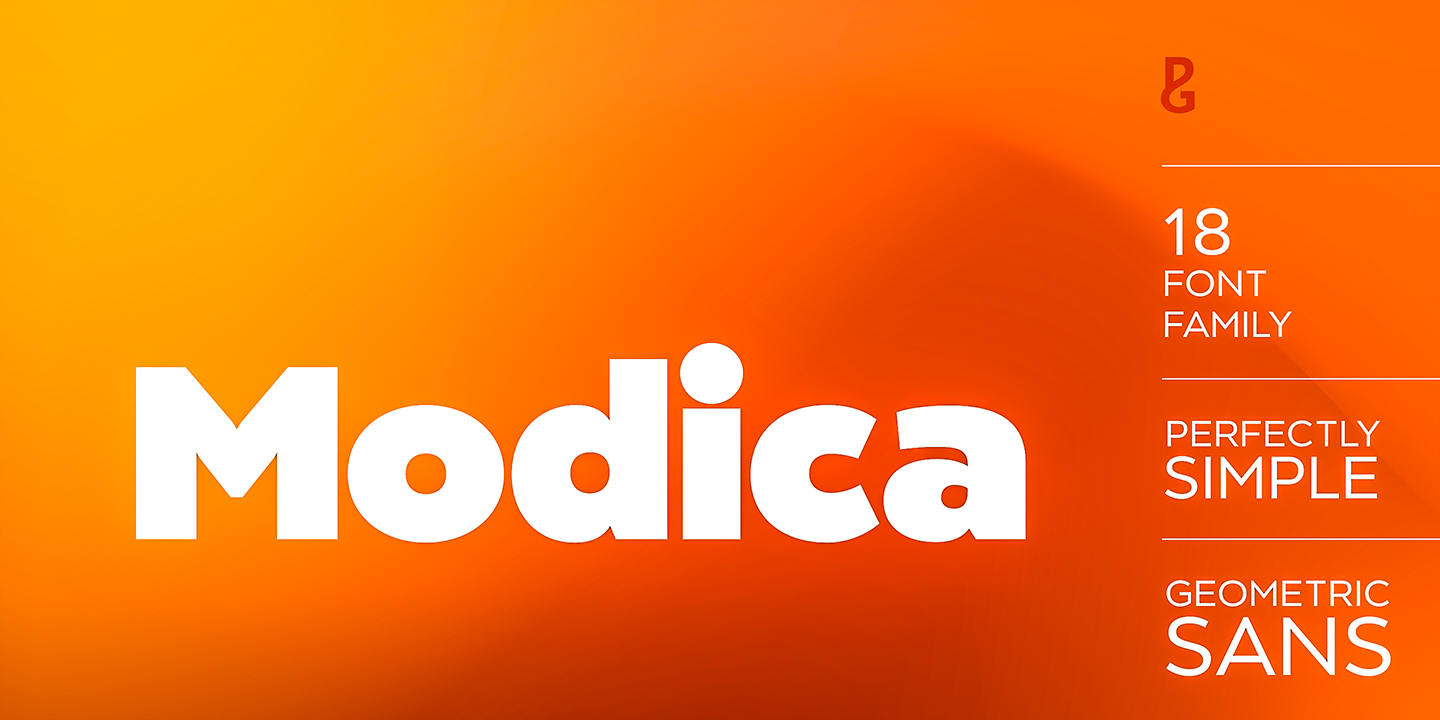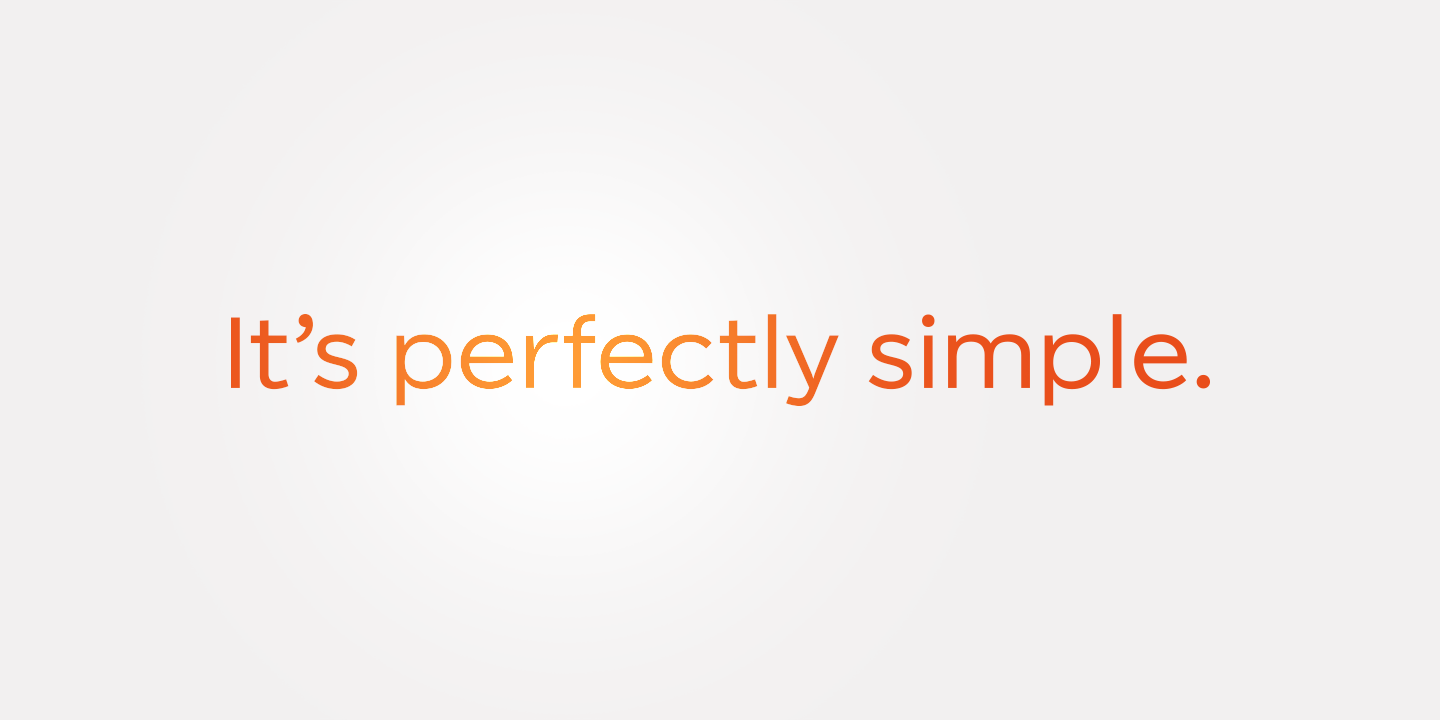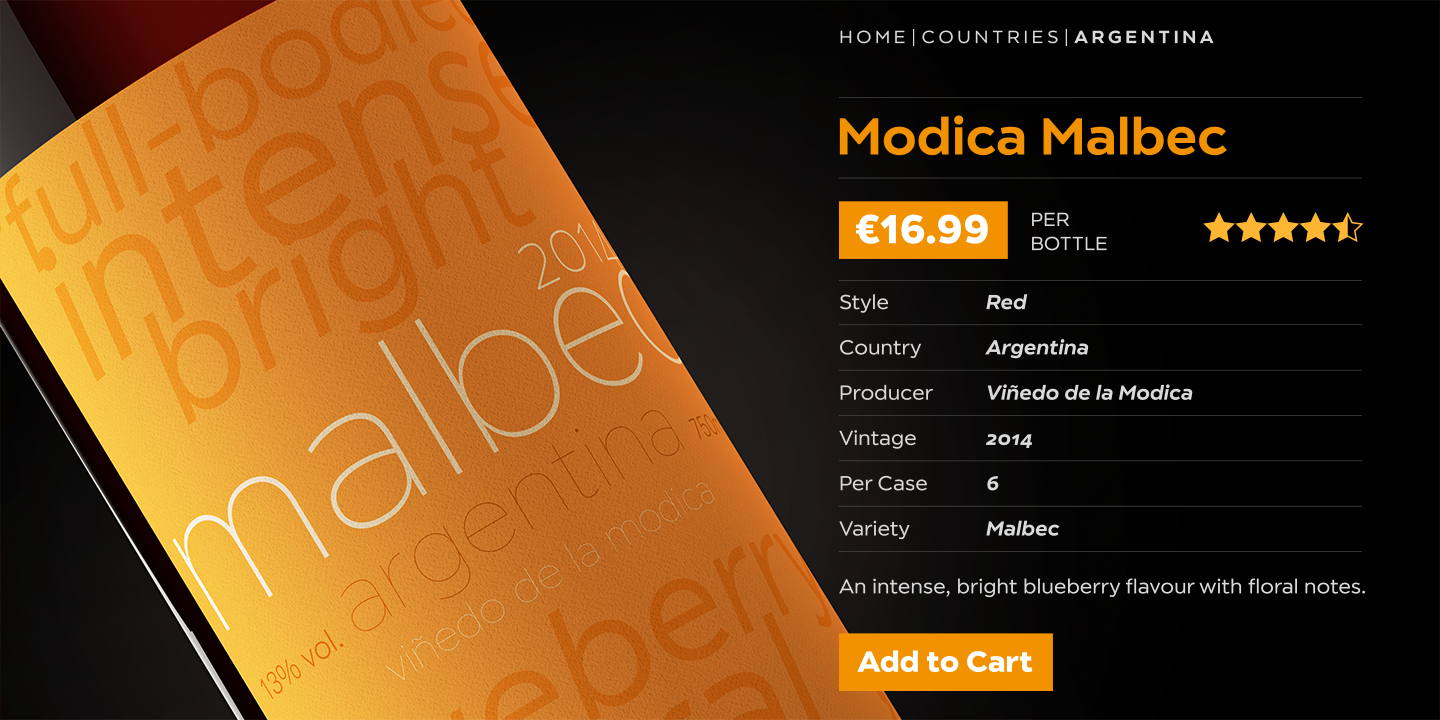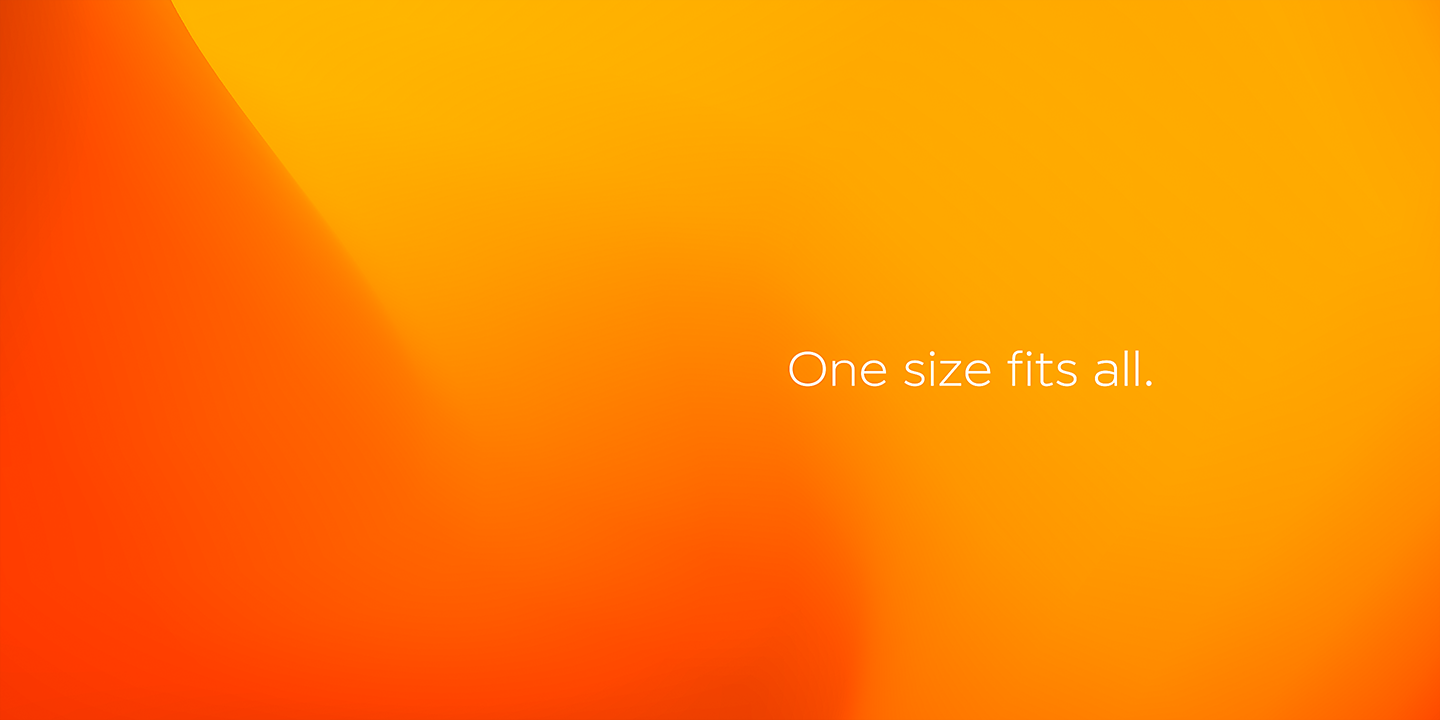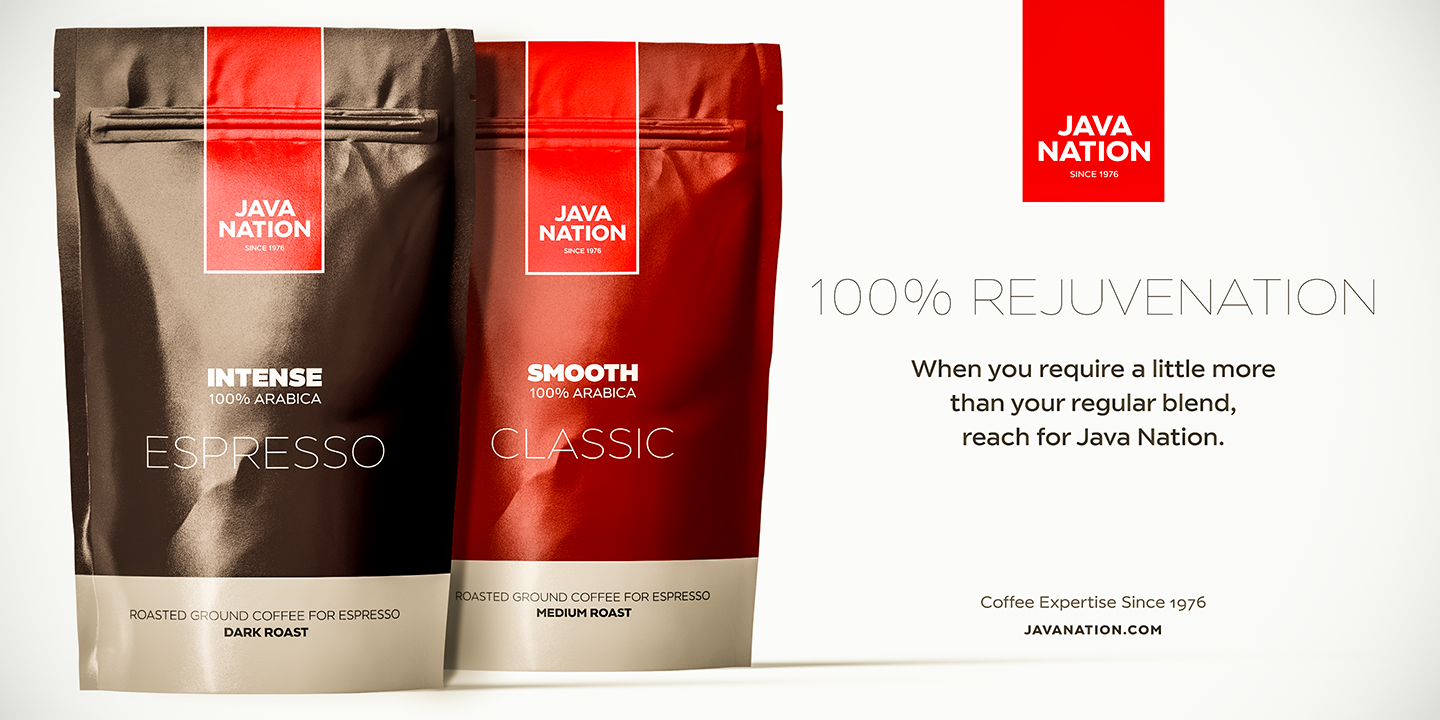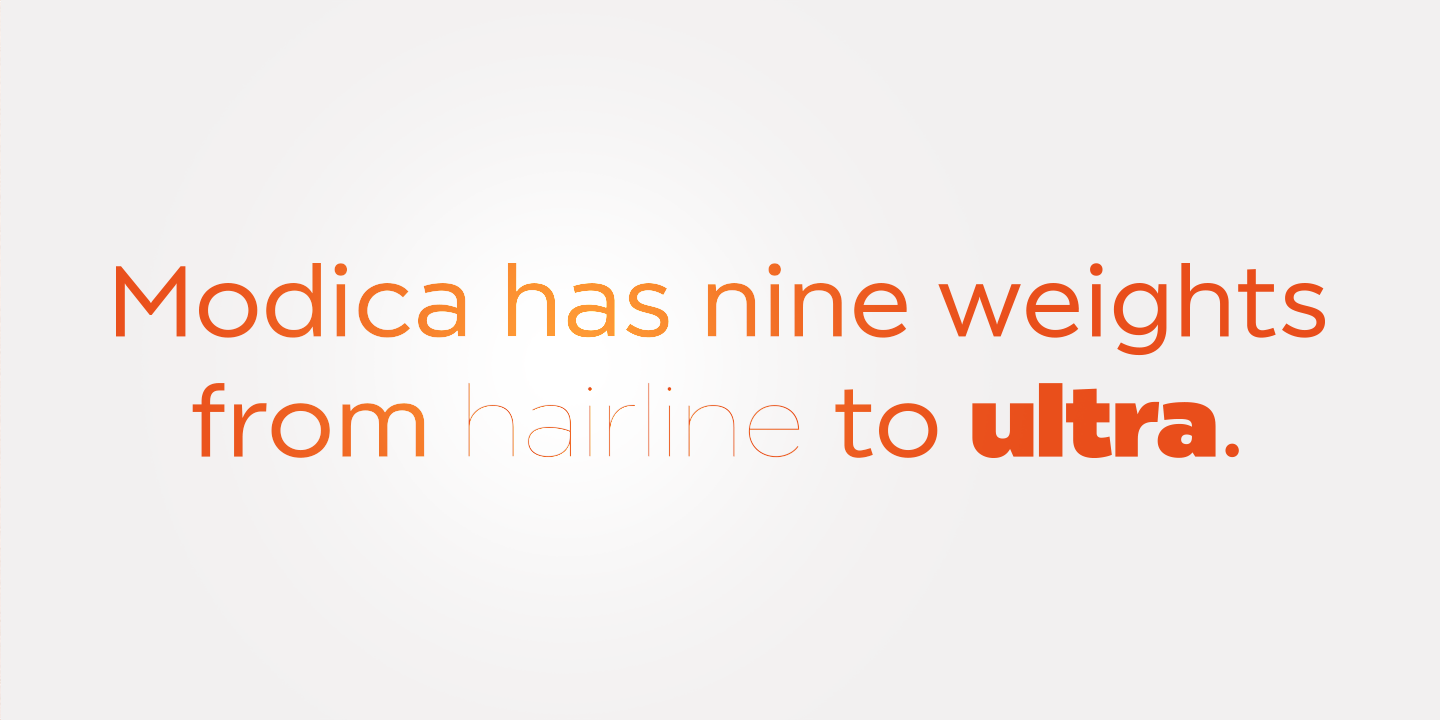
About the Modica Font
About Modica Font Family Modica is a strong and agile Geometric Sans type family comprising 18 fonts, This typeface began life as “Meccanica” – a quirky, heavy, engineering typeface, that later evolved into the more conservative “Technica” type family, And now, the typeface has been distilled down to its simplest and most perfect form to become “Modica”
Modica is a nimble typeface that can handle a multitude of applications – everything from body copy to retail fashion to corporate identities, , , why not put Modica to task today? Key features:• 9 weights in Roman and Italic• Full European character set (Latin only)• 450+ glyphs per font